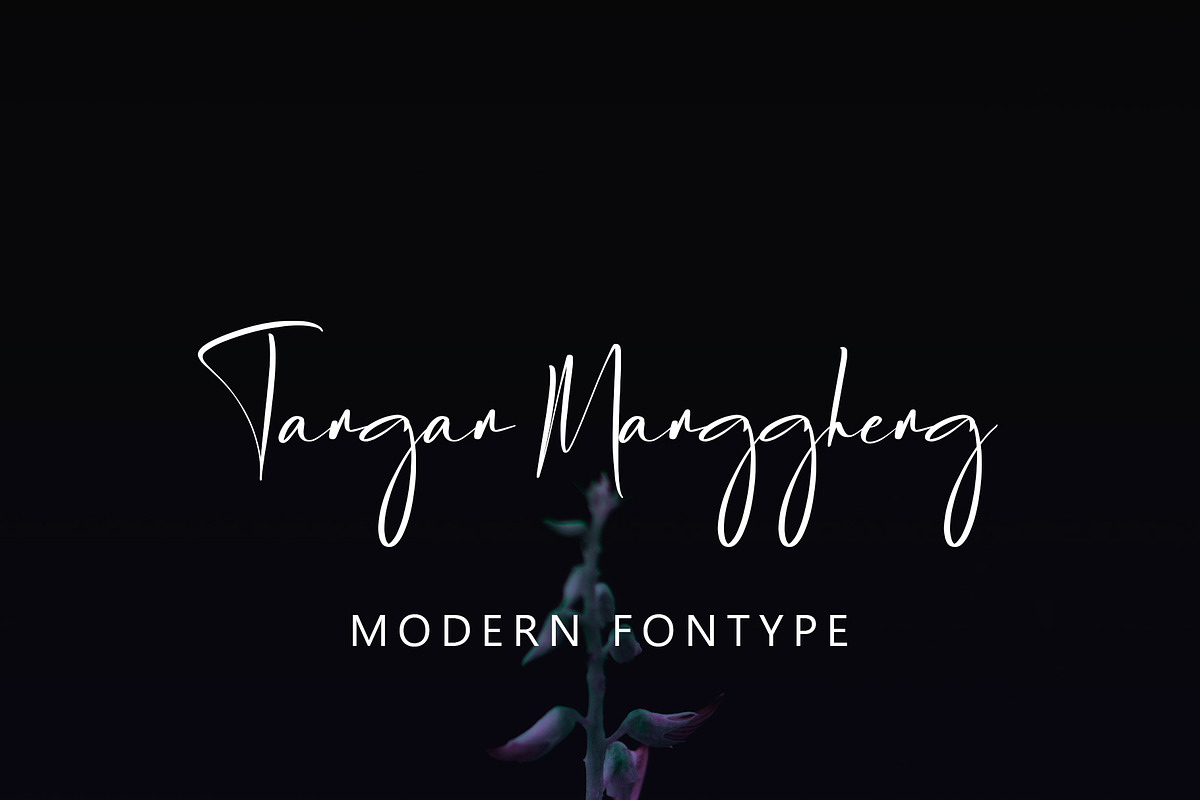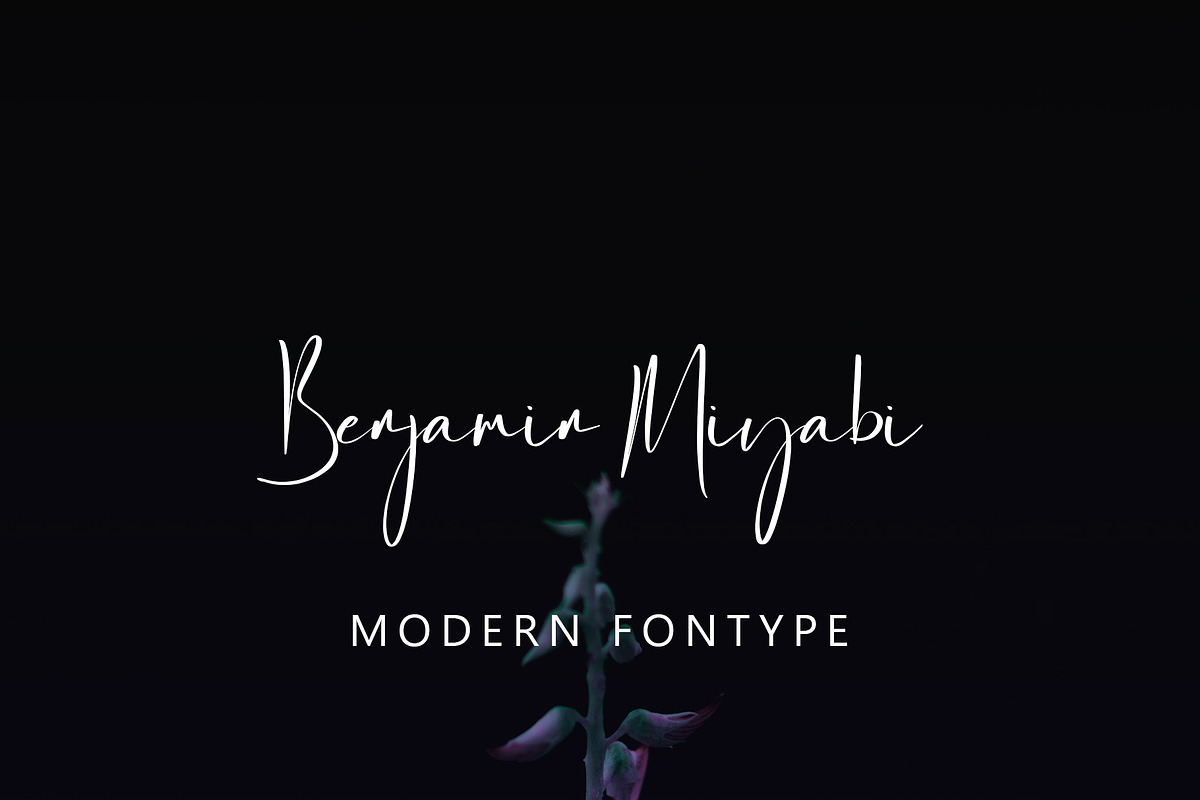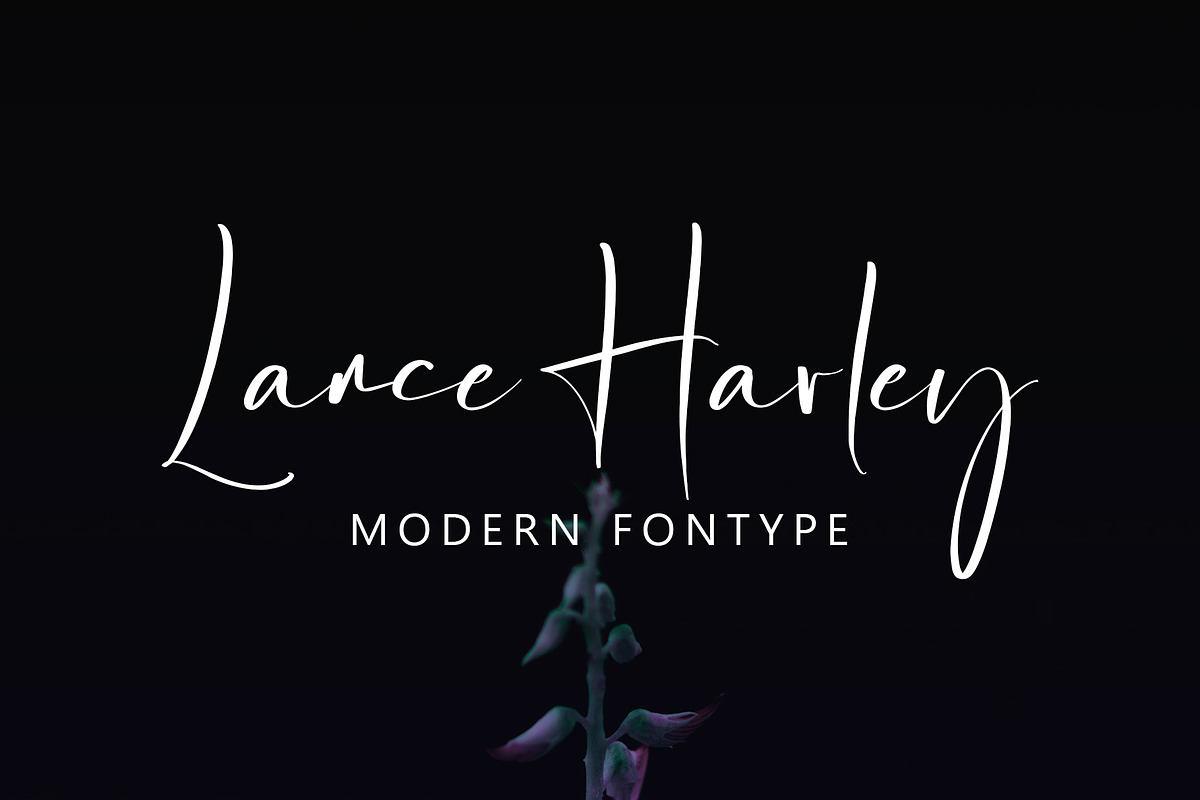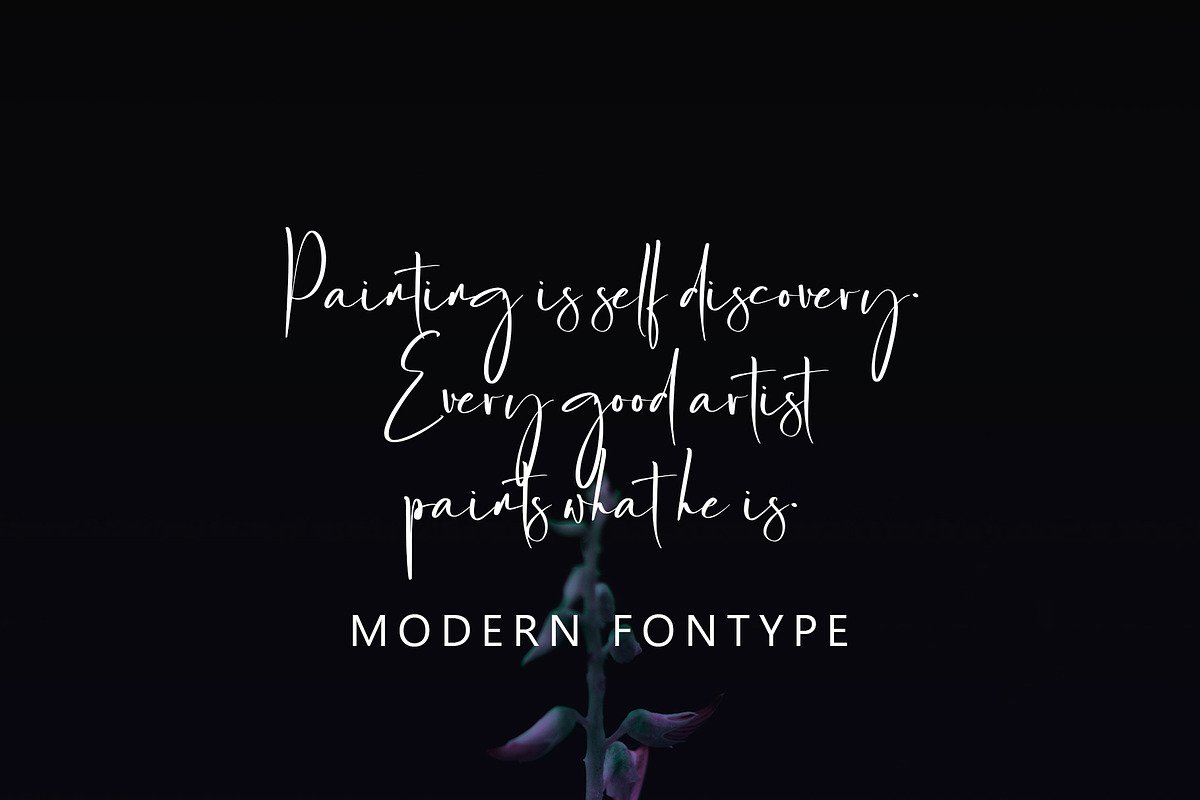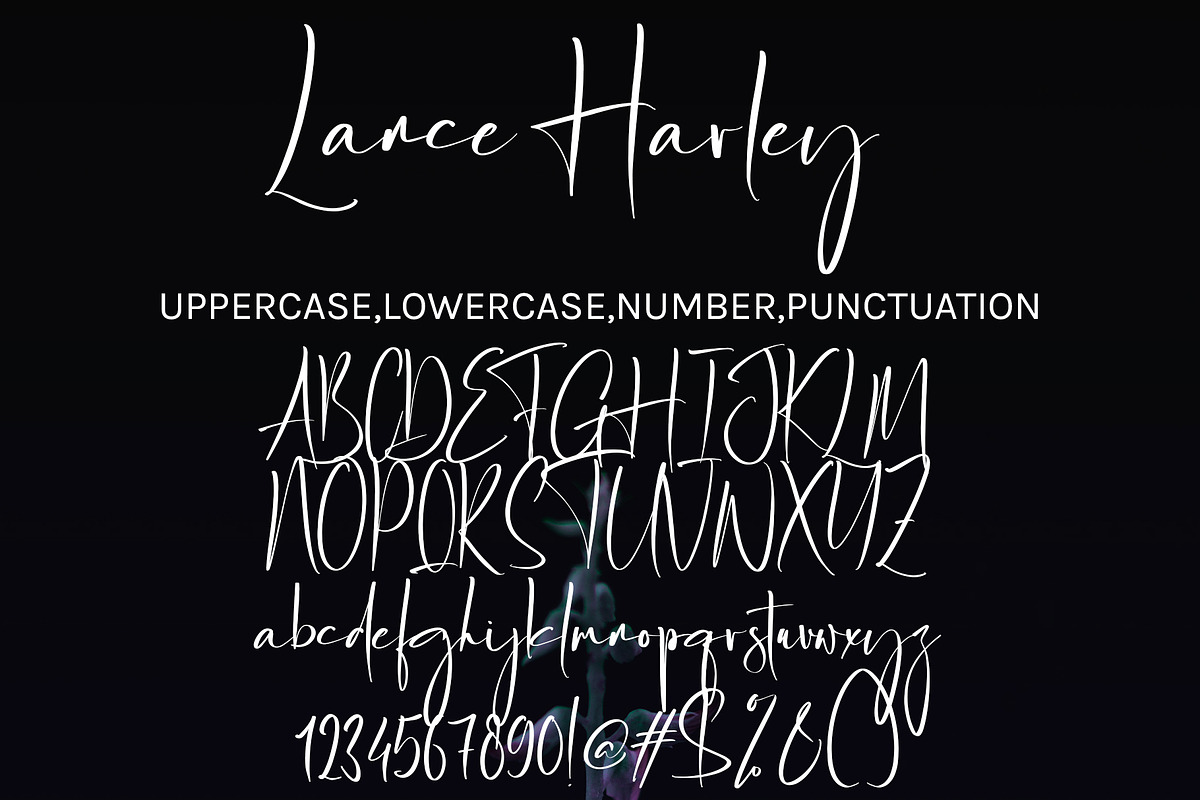
Lance Harley
Lance Harley with new style, this font will perfect for many different project ex: quotes, logo, blog header, poster, banding, letter, invitation, stationery, etc...